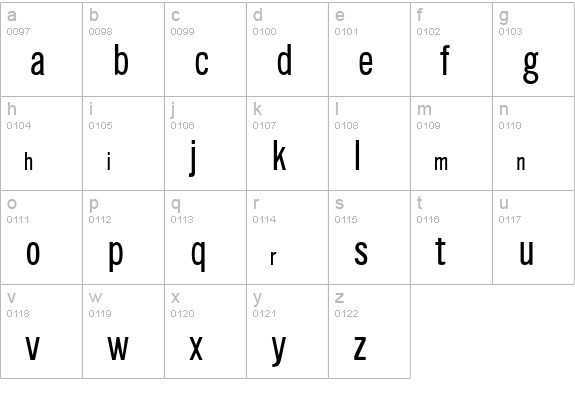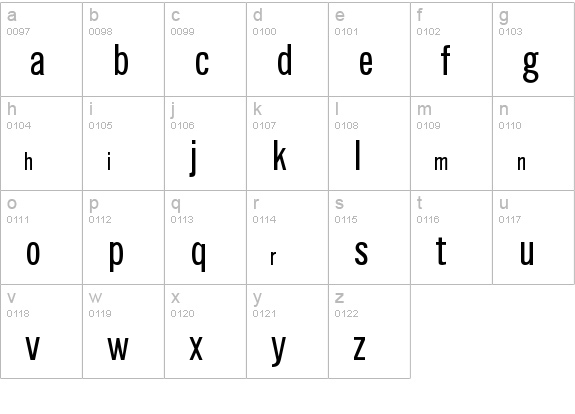
Channel Font Details
Channel font is a modern and sleek typeface that exudes elegance and sophistication. Its clean lines and sharp edges make it perfect for a wide range of design projects, from branding to editorial layouts. The versatility of Channel font allows it to be used in both digital and print applications, making it a go-to choice for designers looking to make a statement. The best part? Channel font is available for free download at FontsMarket.com. This means you can access this high-quality typeface without any cost, making it a valuable addition to your font library. Whether you're working on a logo, website, or marketing materials, Channel font will help elevate your design and give it a modern edge. Download Channel font today and see the difference it can make in your projects.